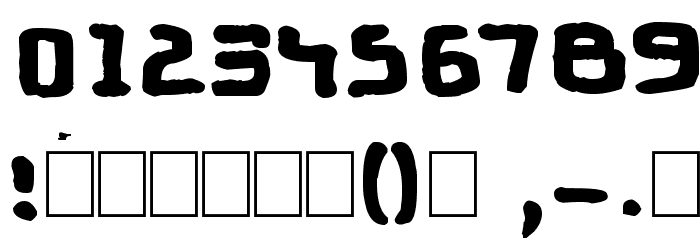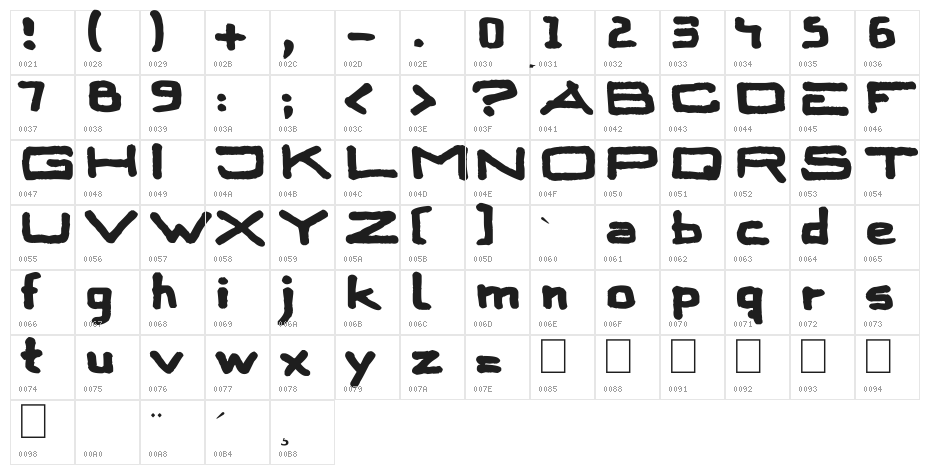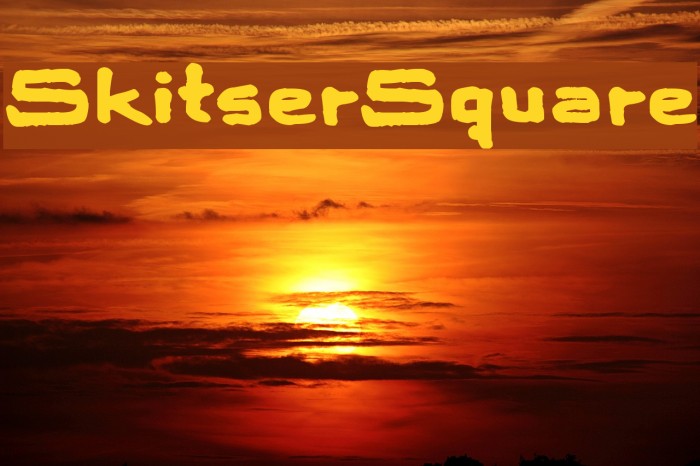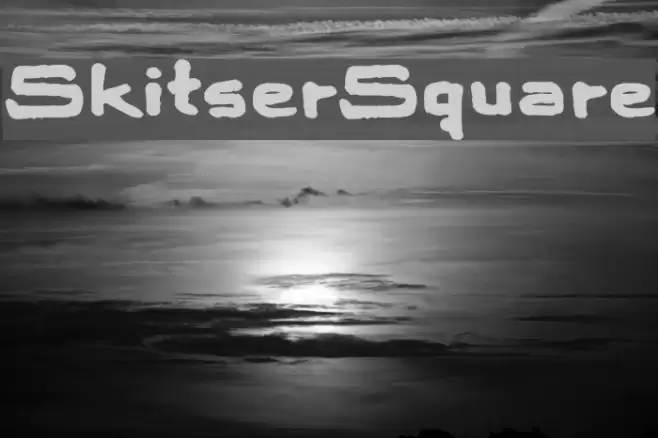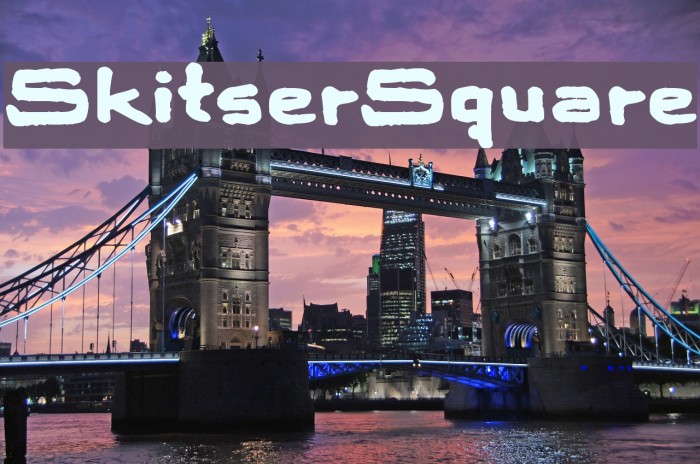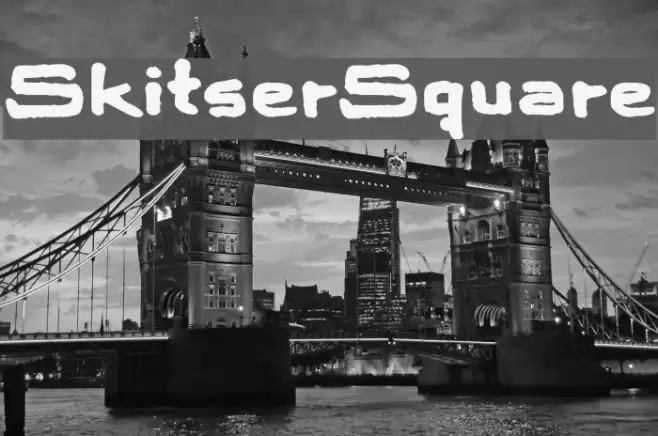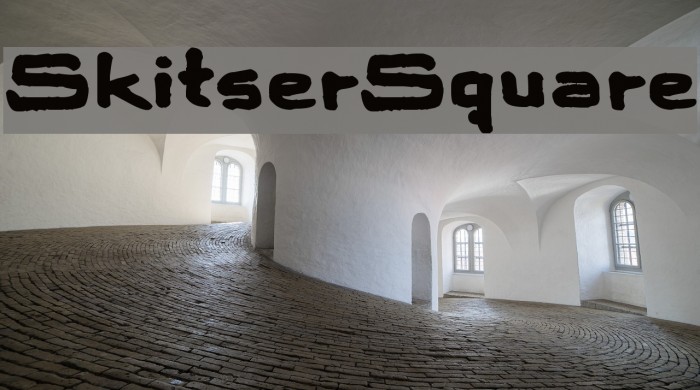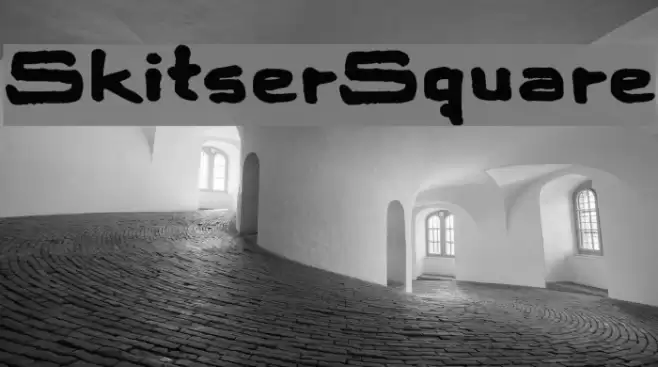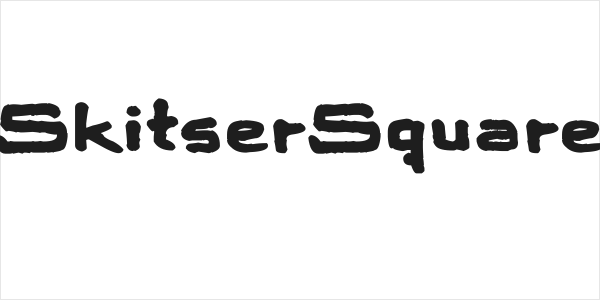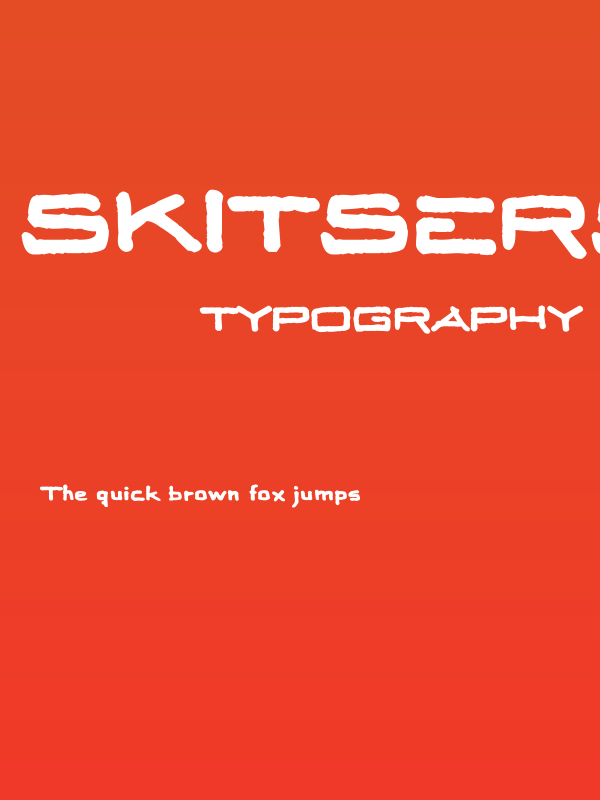
SkitserSquare Font
SkitserSquare Description
This font exhibits a bold and rugged style with a hand-drawn appearance. The characters have a rough, textured edge that gives them a unique, organic feel. The uppercase letters are slightly wider and more pronounced, while the lowercase letters maintain a consistent height, adding to the font's readability. The numbers are bold and match the overall style, making them stand out. Special characters are included, maintaining the same rough texture. This font is perfect for projects that require a handmade or artistic touch, such as posters, logos, or creative branding.
| Proposed Projects | Ideal for posters, logos, creative branding, and artistic projects. |